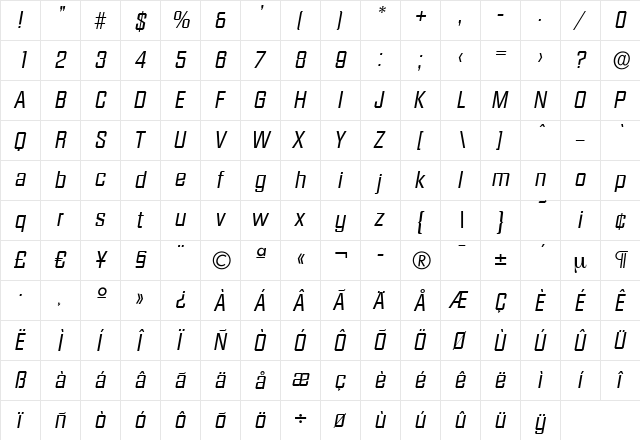
SeanBecker Italic Font Preview
SeanBecker Italic
SeanBecker Italic Font Details
Design Context for SeanBecker Typeface
SeanBecker is a composed and adaptable typeface that performs quietly and consistently across a wide range of design contexts. The dynamic lean of this cut emphasises speed and emphasis in any layout.
Pro Tip: Use SeanBecker for emphasis, pull quotes, and subheadings where its slanted energy can add rhythm to the layout.